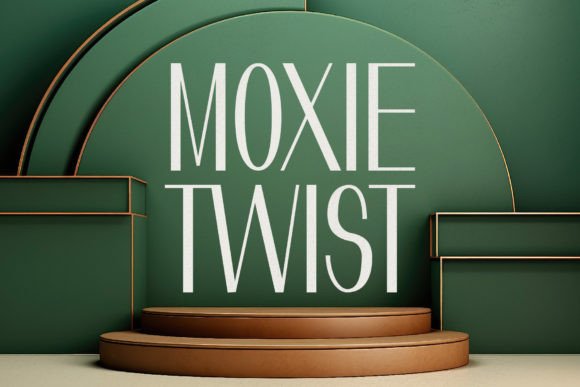
Journey to the era of timeless elegance with Moxie Twist, a modern revival of classic 1930s typography. Inspired by the iconic signage and captivating headlines of the past, this font effortlessly blends nostalgia with a fresh, contemporary twist. Moxie Twist is the epitome of sophistication, lending an air of charm and character to your digital creations.
Unleash the power of condensed words with Moxie Twist, specially designed to make every letter count. Its sleek, streamlined design ensures maximum readability, even in the most compact spaces. Whether you're crafting logos, headlines, or social media posts, Moxie Twist delivers impact without sacrificing clarity.
Let Moxie Twist transport you to a bygone era while keeping your designs firmly rooted in the present. Its unique flair and intricate details evoke a sense of vintage charm, while its modern interpretation ensures your work stays relevant and engaging. With Moxie Twist, you'll create designs that resonate with audiences of all ages, seamlessly blending the past and present.
Embrace the allure of Moxie Twist and let it take your designs to new heights. Its versatility knows no bounds, making it the perfect choice for a wide range of projects. From branding materials that exude sophistication to editorial layouts that ooze character, Moxie Twist effortlessly elevates your designs, leaving a lasting impression on your audience.
Unlock the endless possibilities of Moxie Twist today and embark on a creative journey where classic elegance meets modern innovation. Let this font ignite your imagination and captivate your audience with designs that speak to the heart and stand the test of time. Moxie Twist awaits, ready to transform your digital creations into timeless masterpieces.